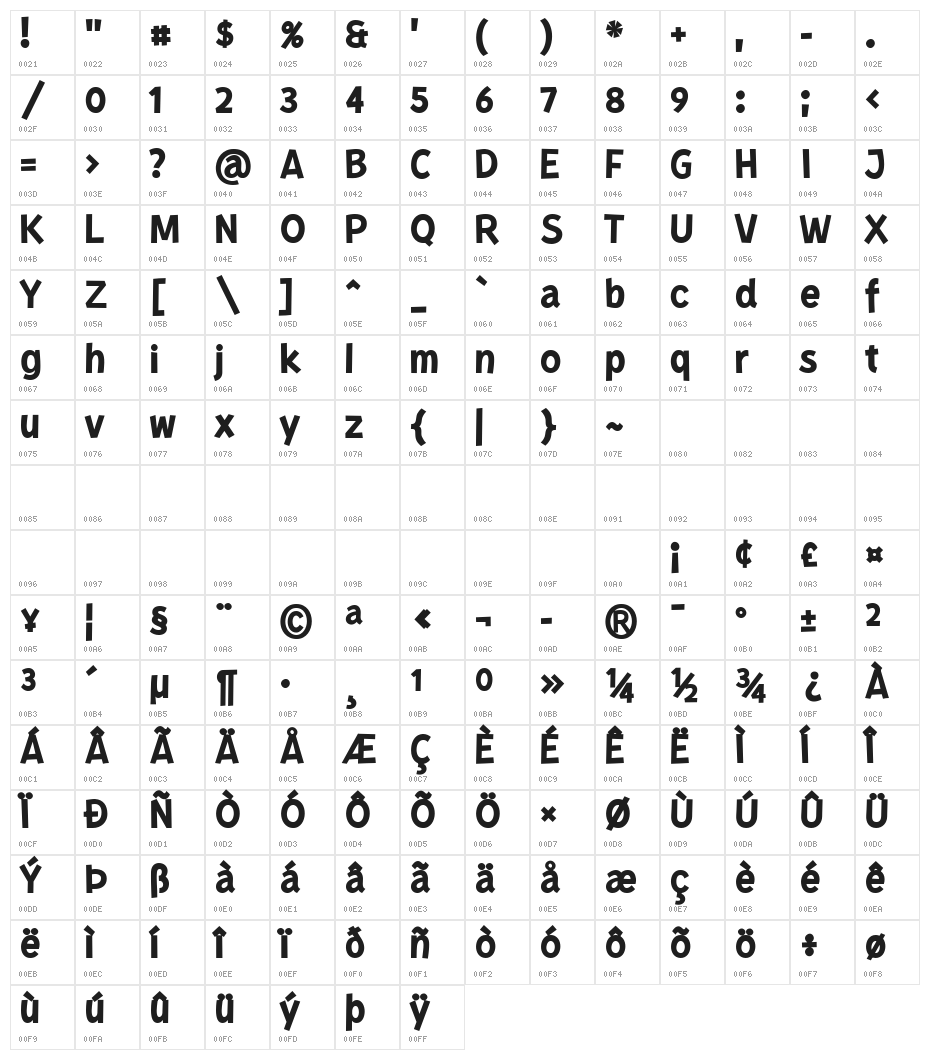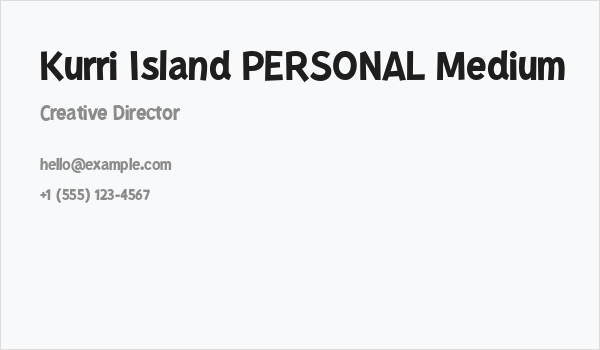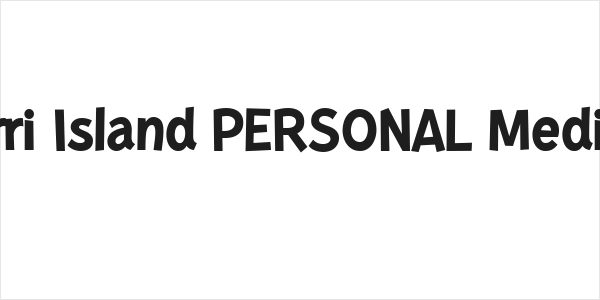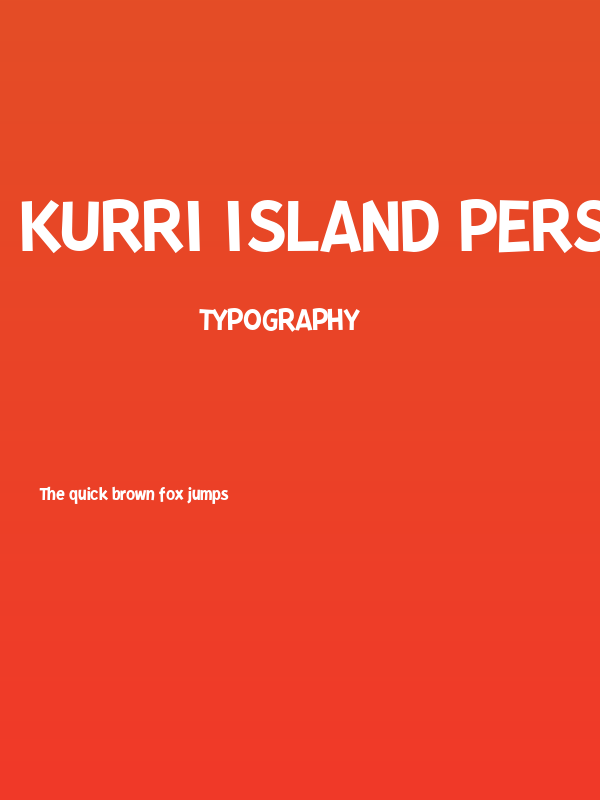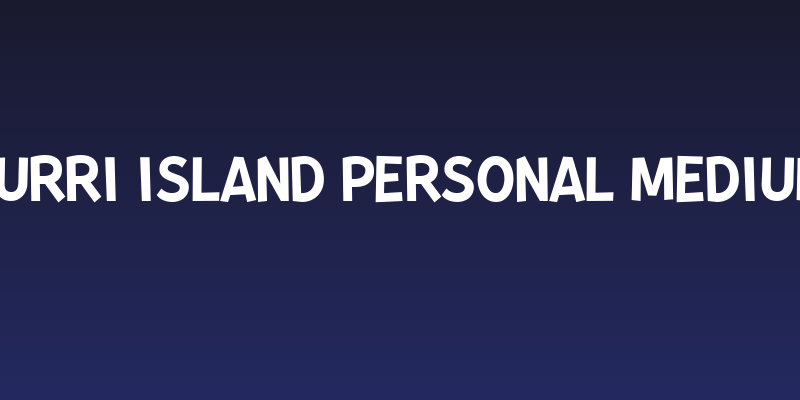
Kurri Island PERSONAL Medium Font
Kurri Island PERSONAL Medium Description
This font features a playful and bold style with a slightly irregular, hand-drawn appearance. The characters are thick and rounded, giving a friendly and approachable feel. The uppercase letters are tall and slightly condensed, while the lowercase letters maintain a consistent height with a quirky touch. The numerals are bold and easy to read, matching the overall style of the alphabet. Special characters are well-integrated, maintaining the same bold and playful aesthetic. This font is ideal for projects that require a fun and informal look.
| Overall Style | Playful, Informal |
| Proposed Projects | Great for children's books, playful branding, posters, and casual invitations. |